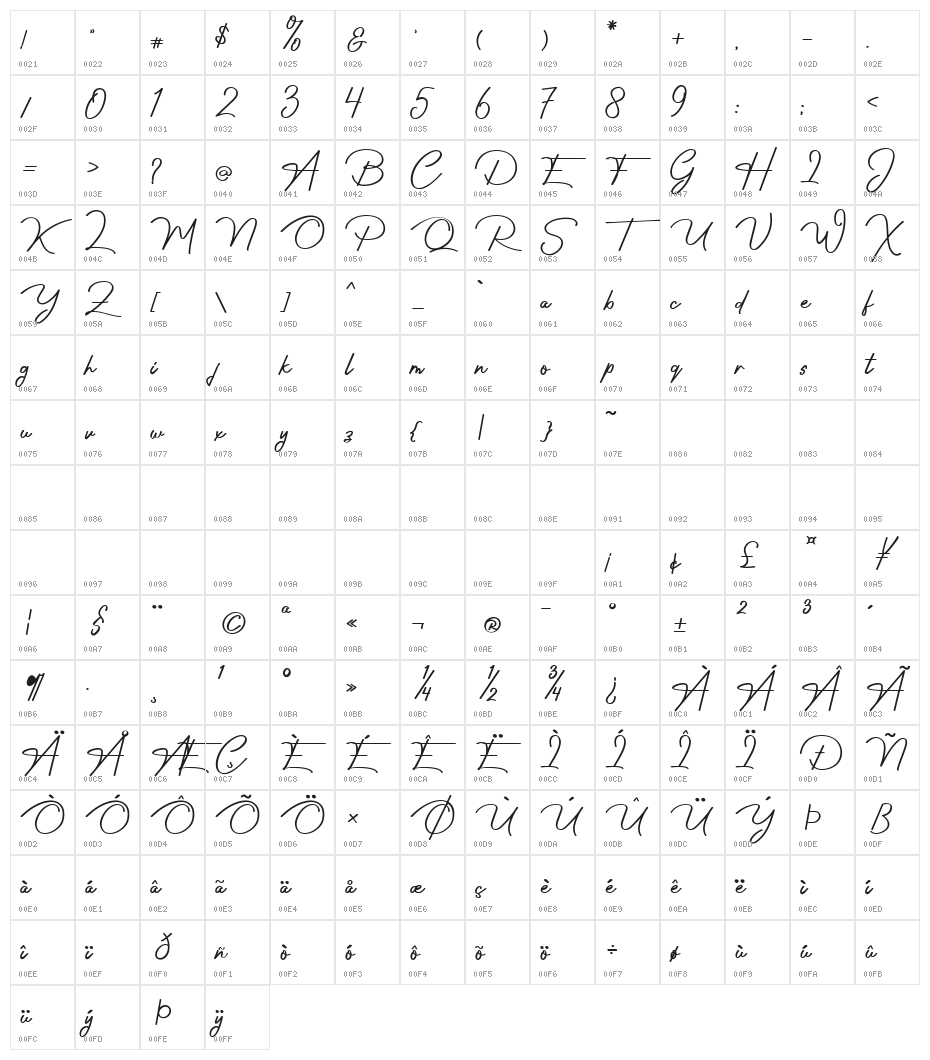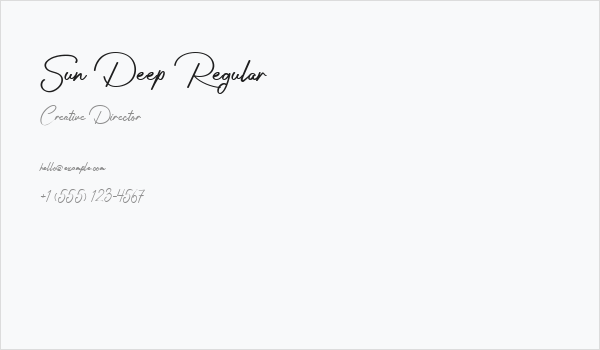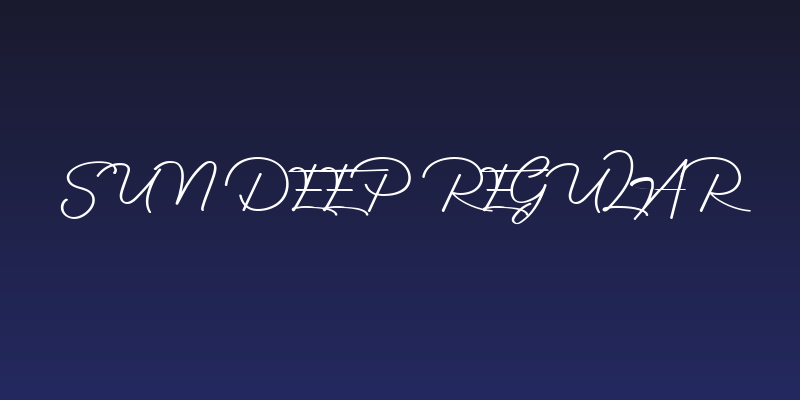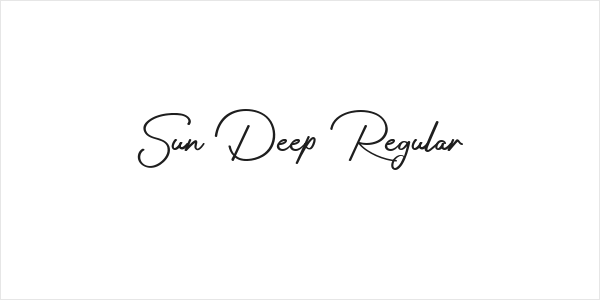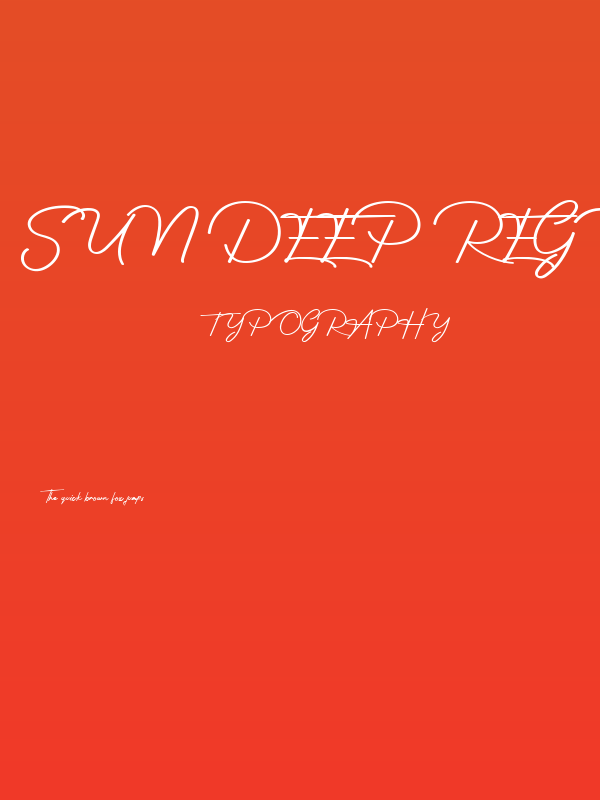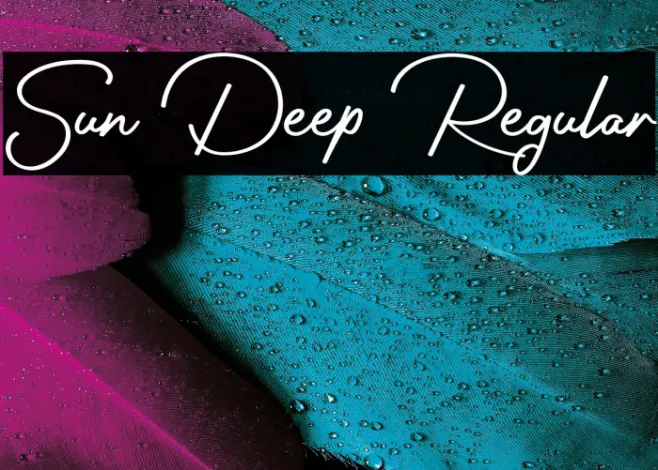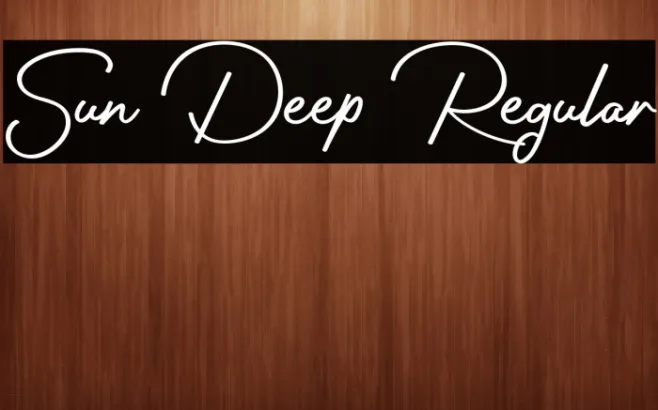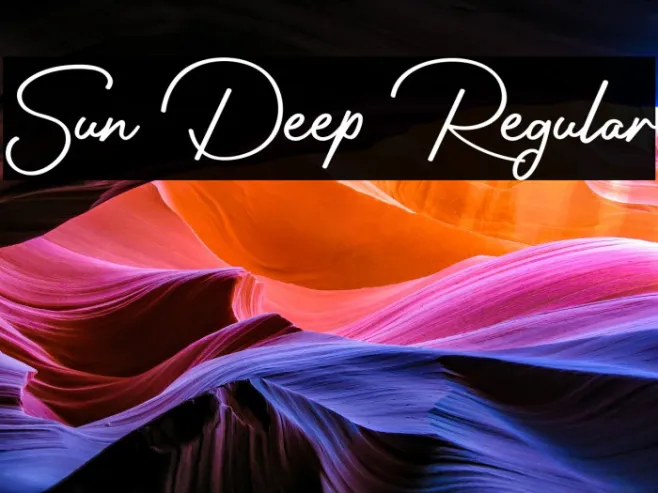
Sun Deep Regular Font
Sun Deep Regular Description
This font features a flowing, cursive style with elegant, sweeping lines that give it a handwritten appearance. The uppercase letters are characterized by their graceful loops and curves, while the lowercase letters maintain a consistent fluidity, enhancing the script-like quality. The numerals are distinct yet harmonize well with the overall aesthetic, maintaining the same fluid strokes. Special characters are designed with the same attention to detail, ensuring they blend seamlessly with the rest of the typeface. The font's overall appearance is both sophisticated and approachable, making it suitable for a variety of applications.
| Overall Style | Elegant, Handwritten |
| Proposed Projects | Ideal for wedding invitations, greeting cards, personal branding, and elegant packaging designs. |